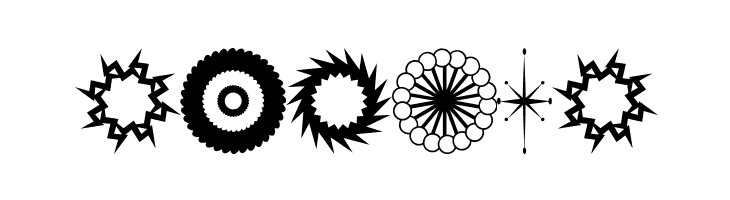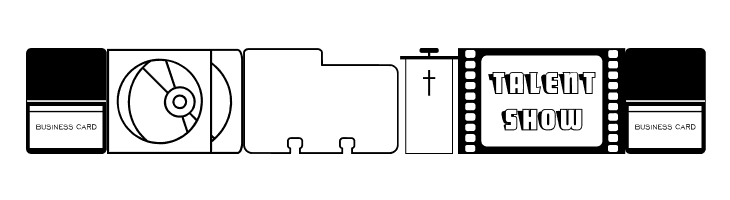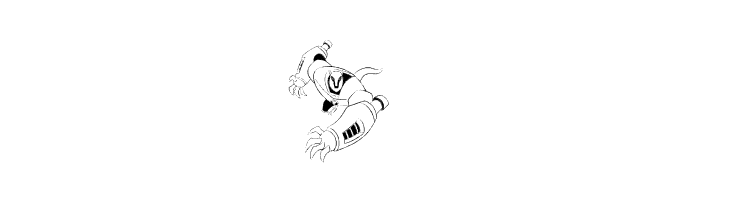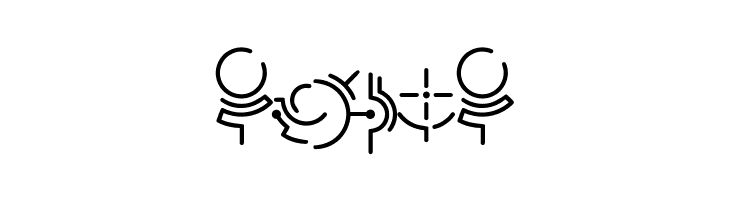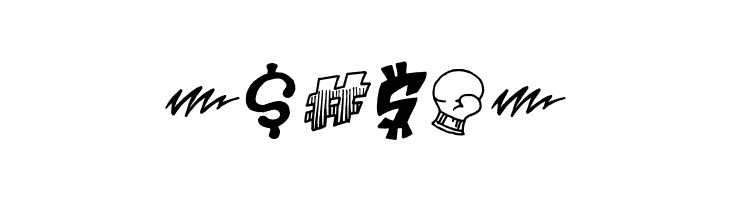
A playful dingbat font with quirky, illustrative symbols.
A decorative font of starburst and celestial symbols.
A decorative font showcasing Jewish cultural symbols and icons.
A decorative font featuring graphic arts and drafting tool symbols.
A decorative font with whimsical, retro-inspired graphics and symbols.
A playful, handwritten font with doodle-like symbols and a casual, friendly style.
A playful, cartoon-style font with bold, expressive symbols and icons.